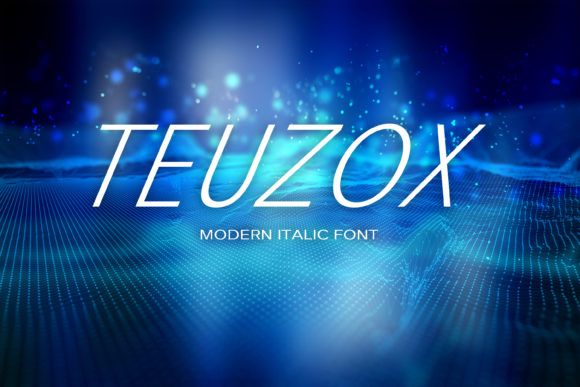
Introducing Teuzox - the font that will transform your designs with its captivating style and versatility.
Teuzox is a beautiful sans serif font, meticulously crafted by the talented hands at DmDesignsStoreArt, that effortlessly combines the charm of yesteryear with the freshness of today. Its roots lie in the timeless world of traditional sign painting, but it's infused with a modern sensibility, making it the ideal choice for designers seeking a font that stands out from the crowd.
With Teuzox, minimalism meets impact, creating a symphony of visual harmony. Its clean lines and uncluttered aesthetic make it the perfect canvas for conveying your message with clarity and sophistication. Whether you're crafting eye-catching logos, captivating headlines, or personalized business cards, Teuzox effortlessly elevates your designs to new heights.
But Teuzox is more than just a pretty face - it's a workhorse that can handle a wide range of design tasks with equal aplomb. From the realm of branding to the world of t-shirts, Teuzox adapts seamlessly, becoming an indispensable tool in your creative arsenal. Unleash your imagination and let Teuzox guide you to design greatness.
Imagine the impact Teuzox will have on your designs - the way it will captivate your audience and leave a lasting impression. It's the key to unlocking a world of possibilities, a gateway to design excellence. Embrace Teuzox today and embark on a journey of creativity that will redefine your visual identity.